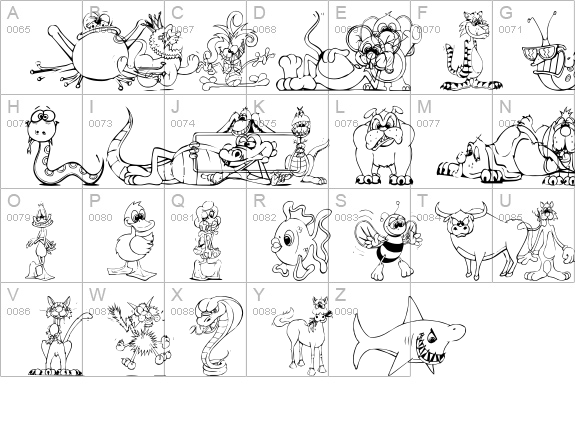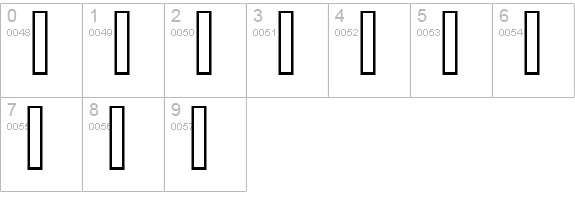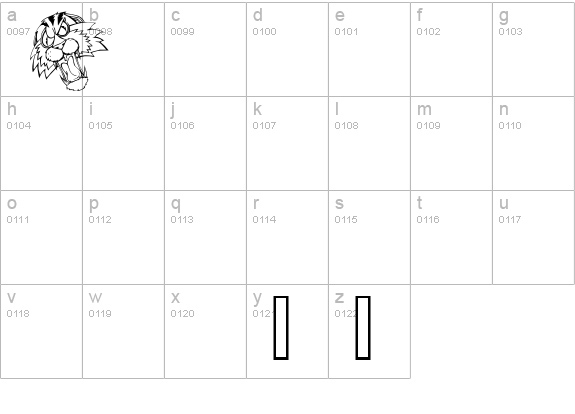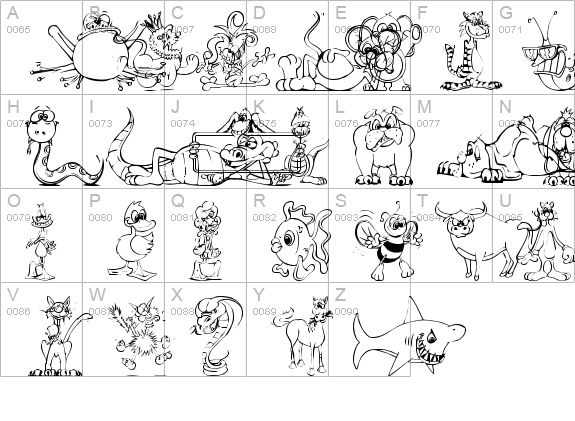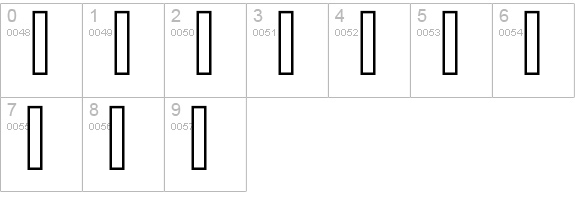
LM Animal Toons Font Details
LM Animal Toons font is a whimsical and playful typeface that perfectly captures the fun and imaginative world of cartoons. With its quirky characters and charming design, this font is sure to bring a smile to your audience. Whether you are creating a children's book, a poster, or any other creative project, LM Animal Toons font will add a touch of whimsy and charm. Best of all, LM Animal Toons font is completely free to use and easily accessible for download at FontsMarket.com. So go ahead and unleash your creativity with this delightful and vibrant font that is sure to stand out in any project!